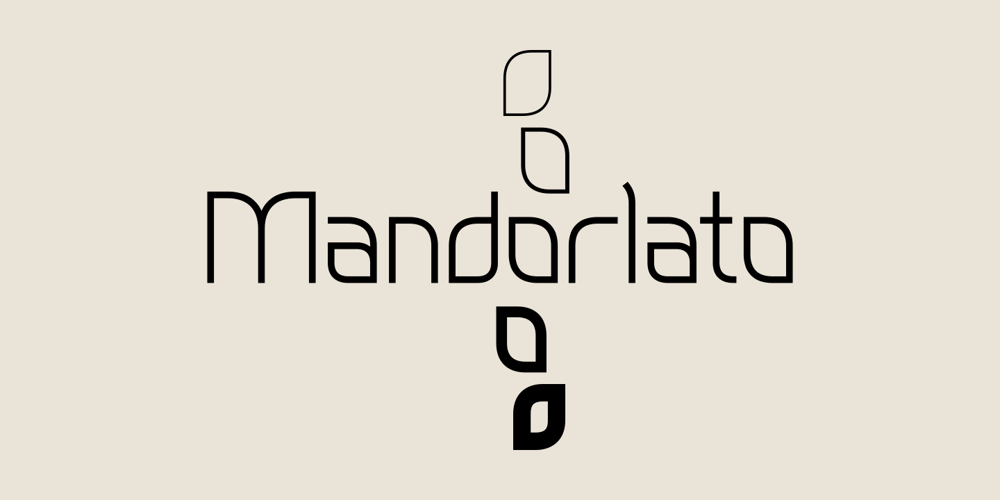
Mandorlato Font Family was designed by Stefano Giliberti and published by Stefano Giliberti. Mandorlato contains 10 styles and family package options. Mandorlato is a font family fruit of an exploration of the timeless almond shape. It supports 114 languages, features a total of 505 glyphs and includes an italicized version for each of the 5 weights.